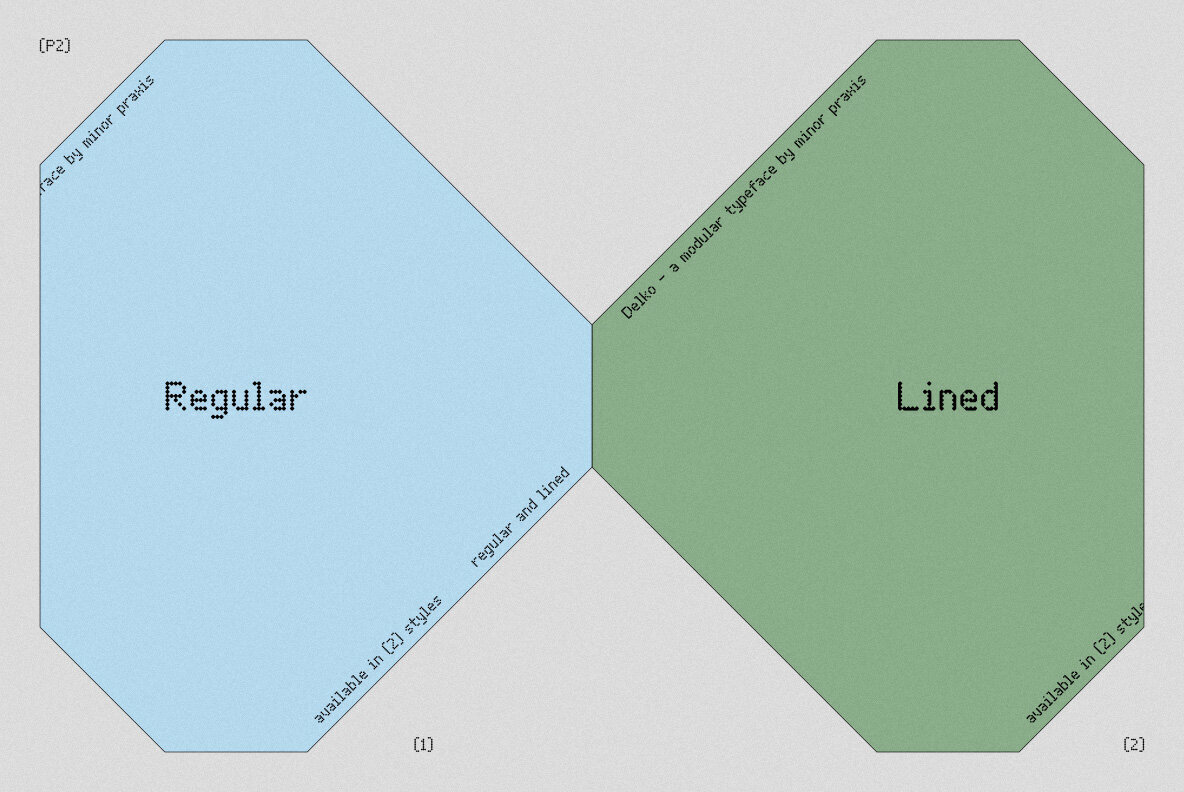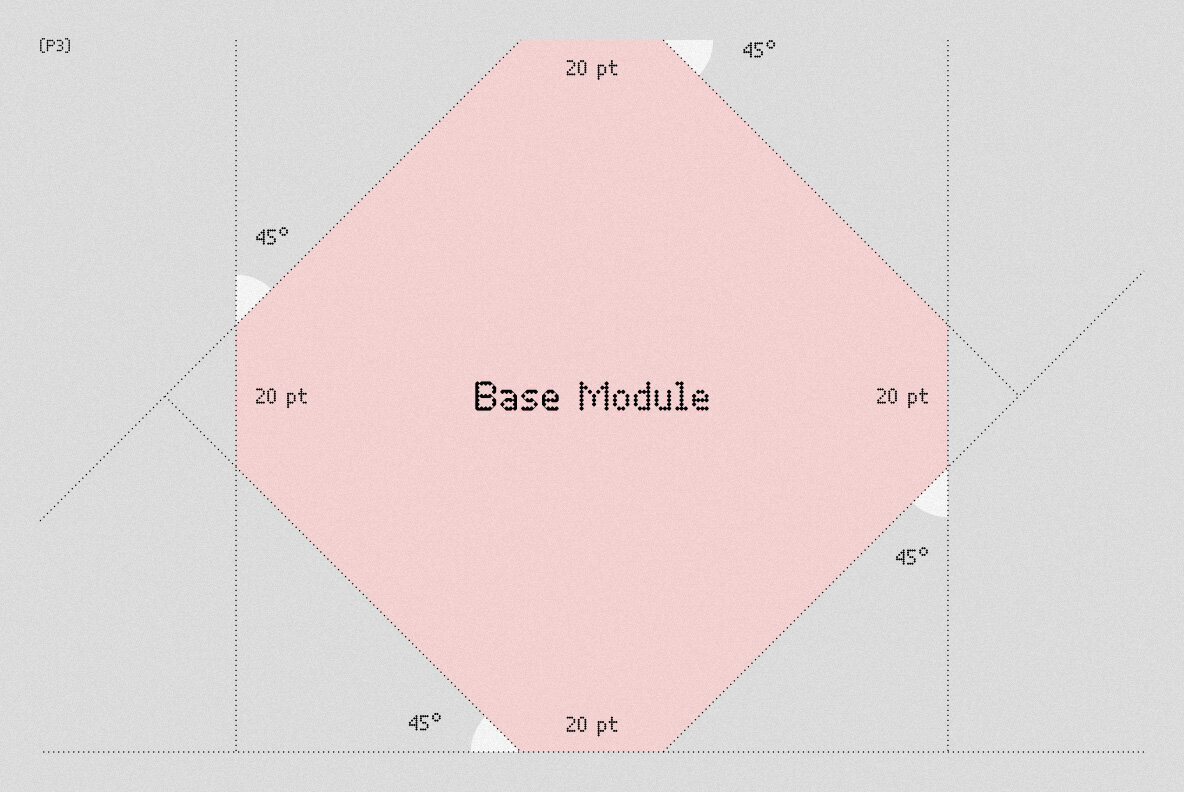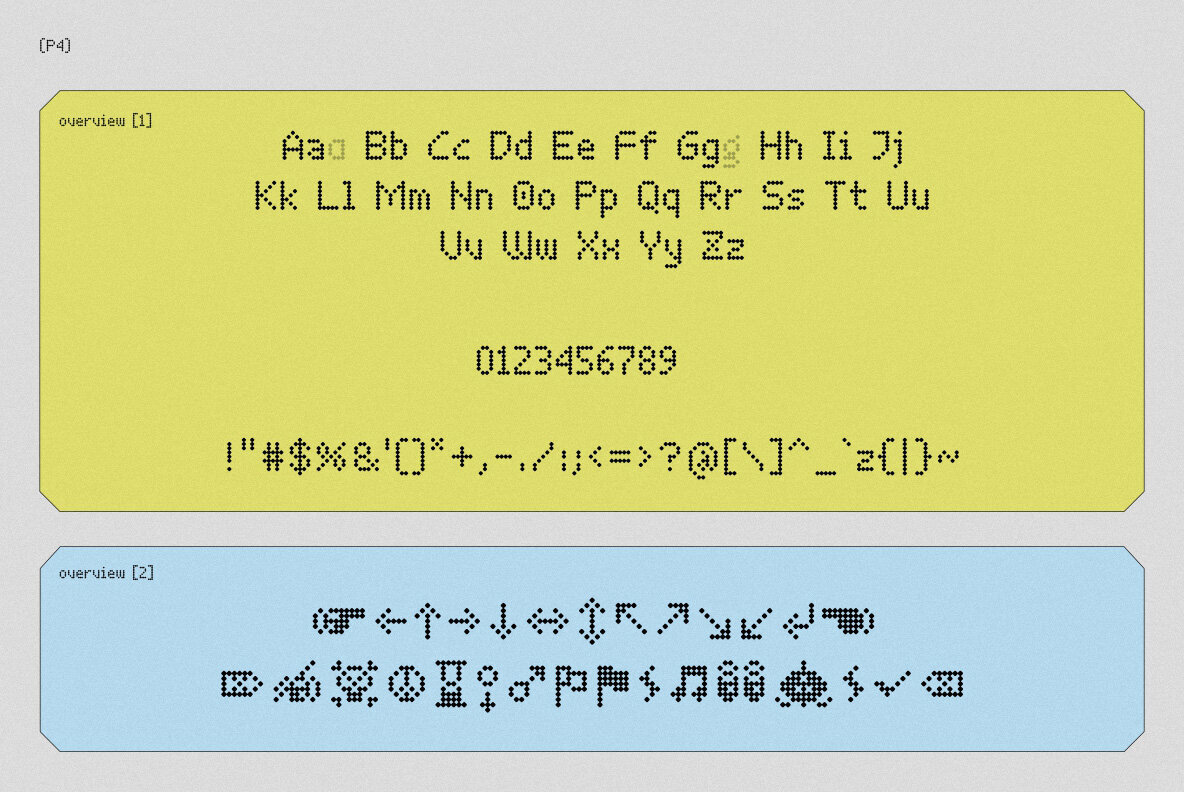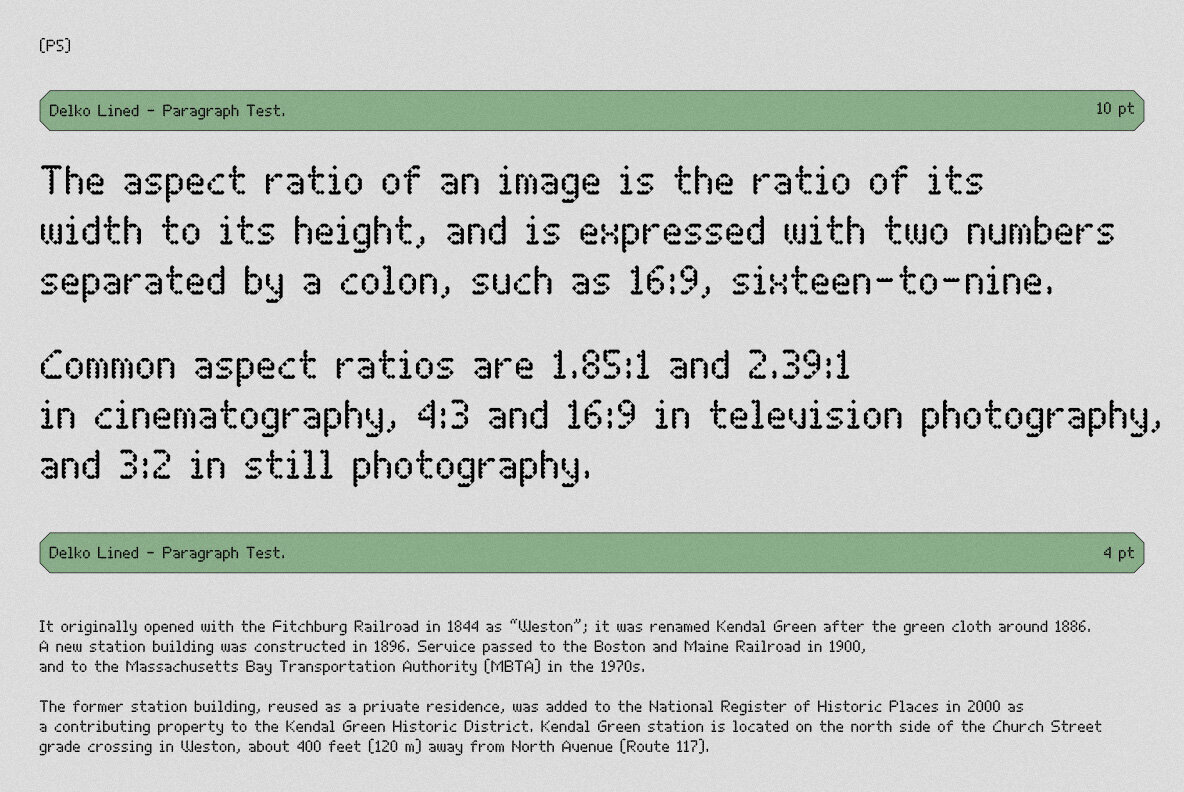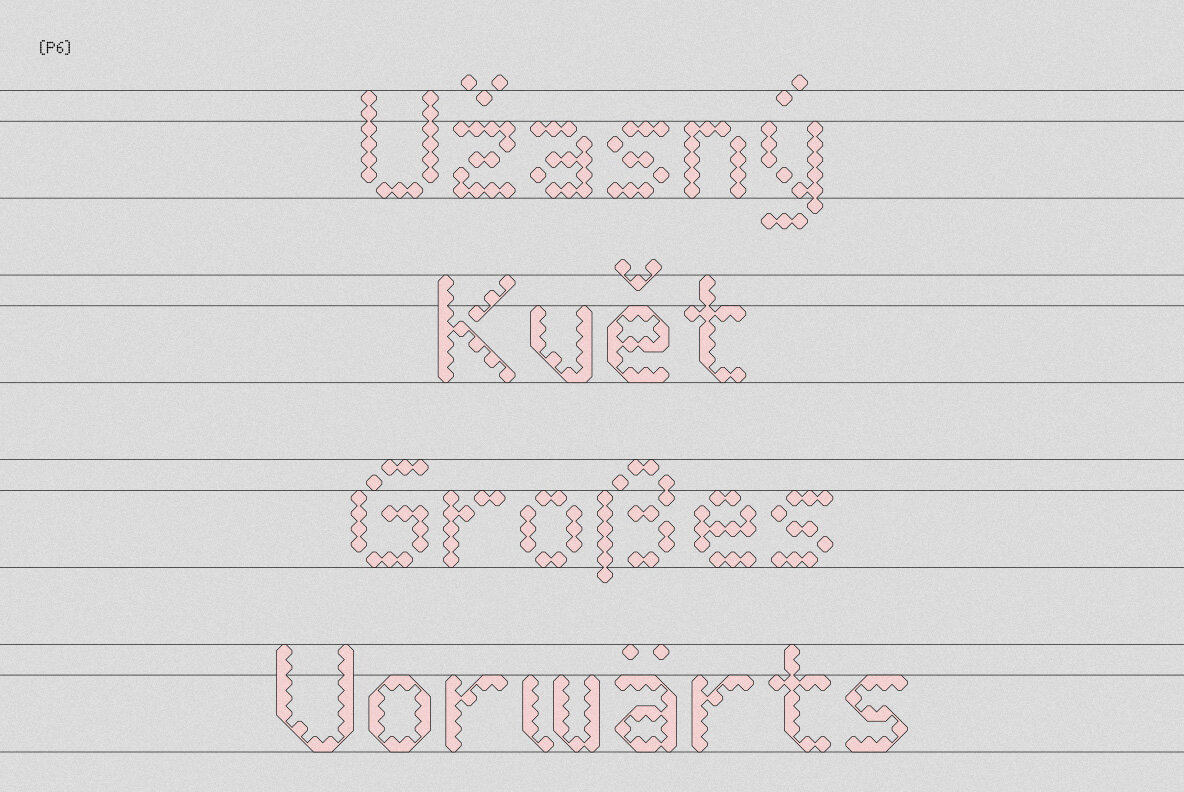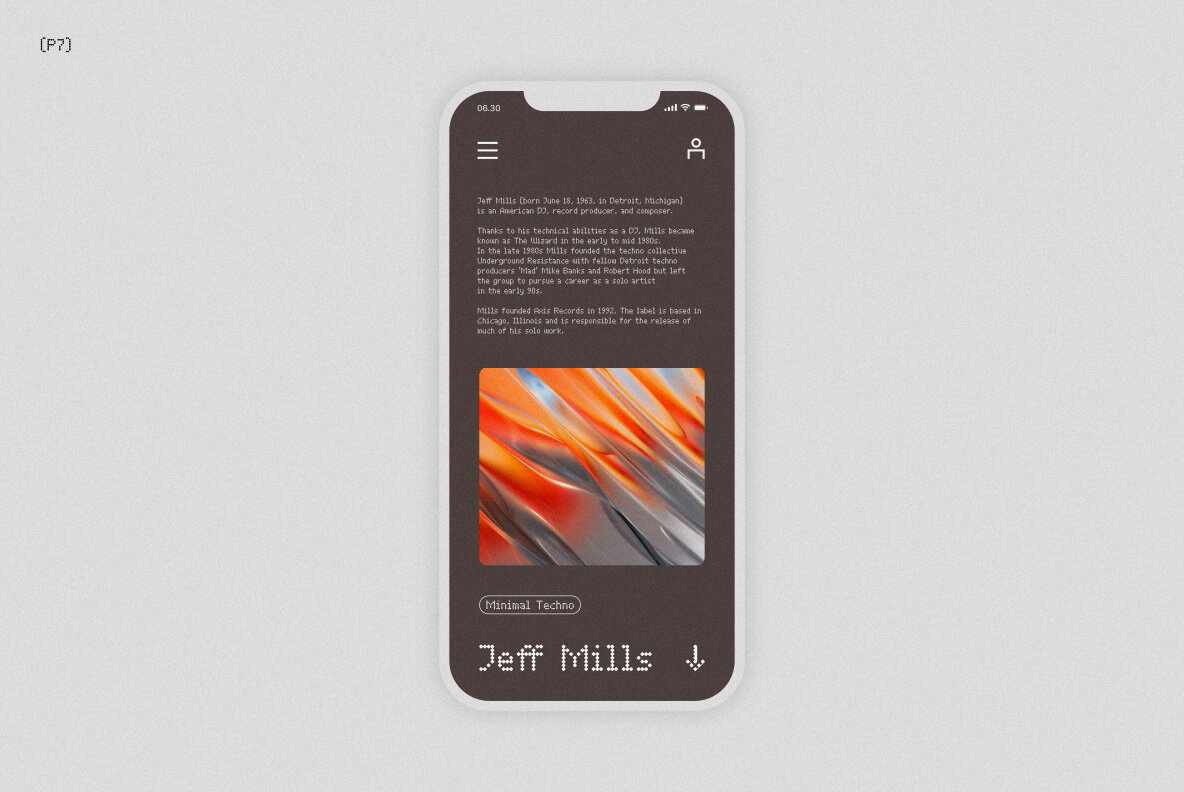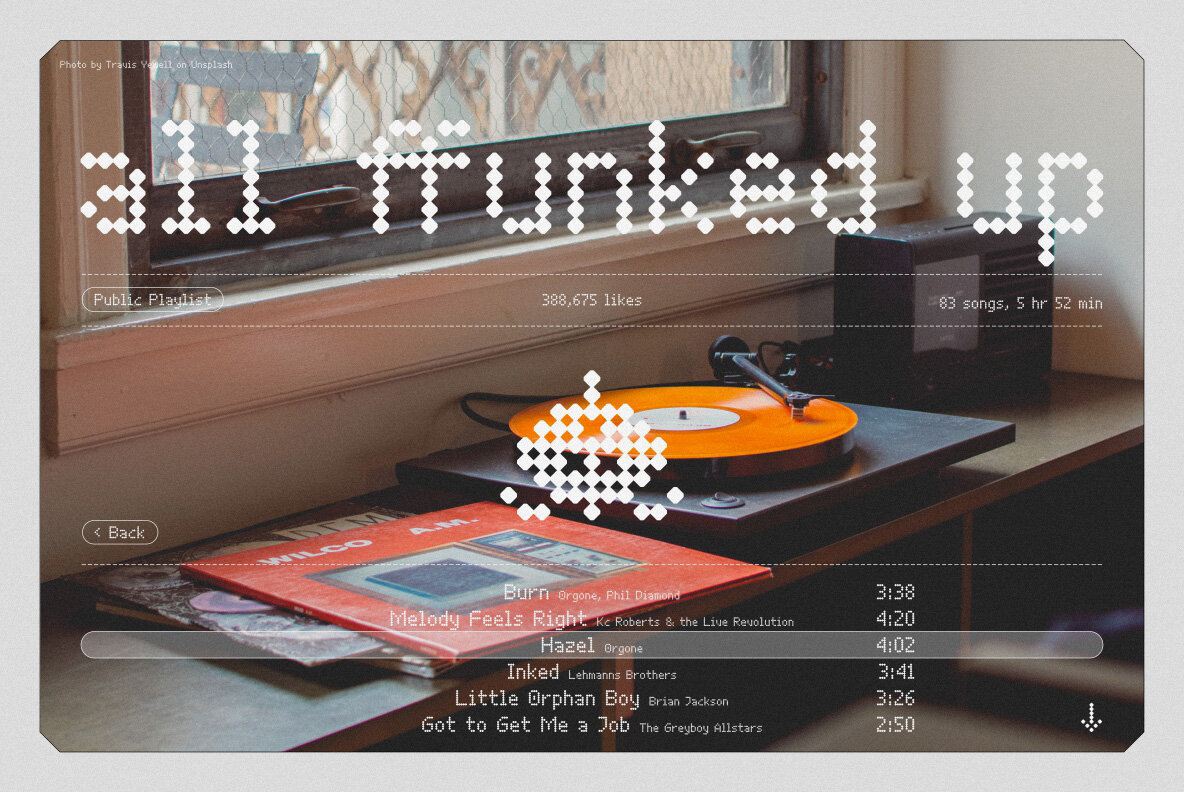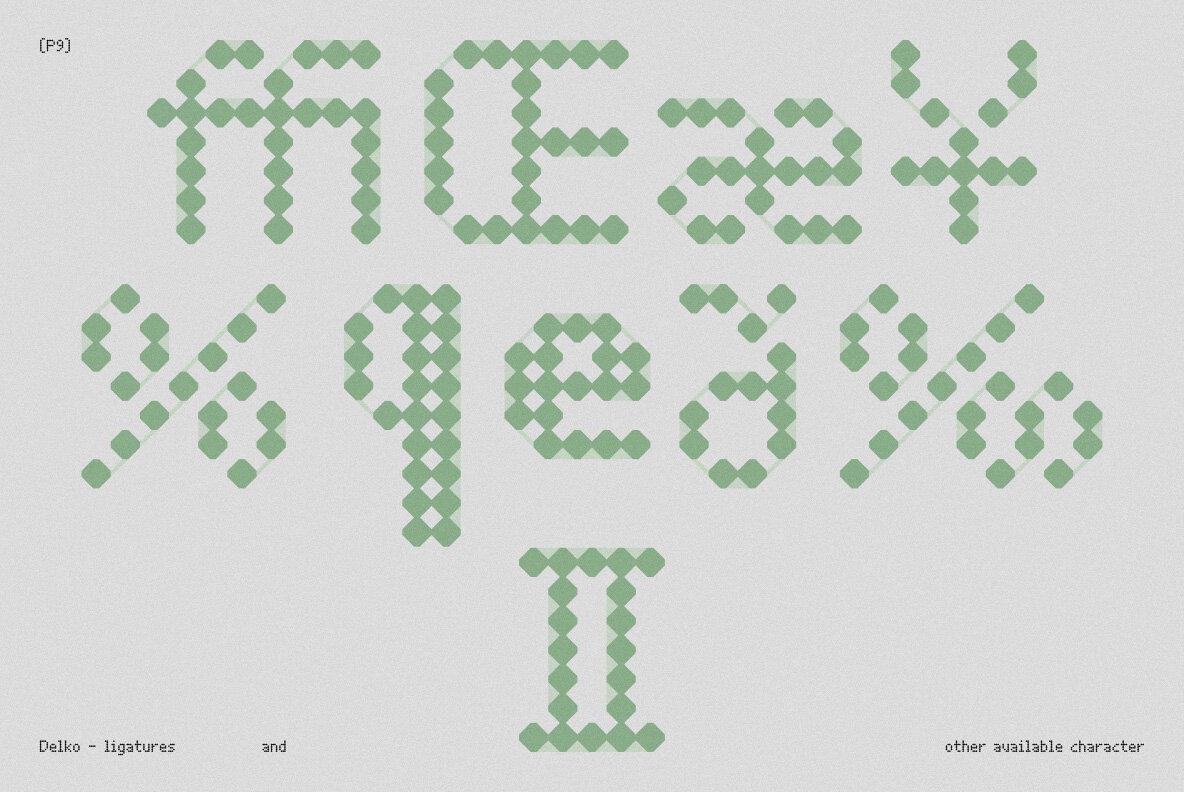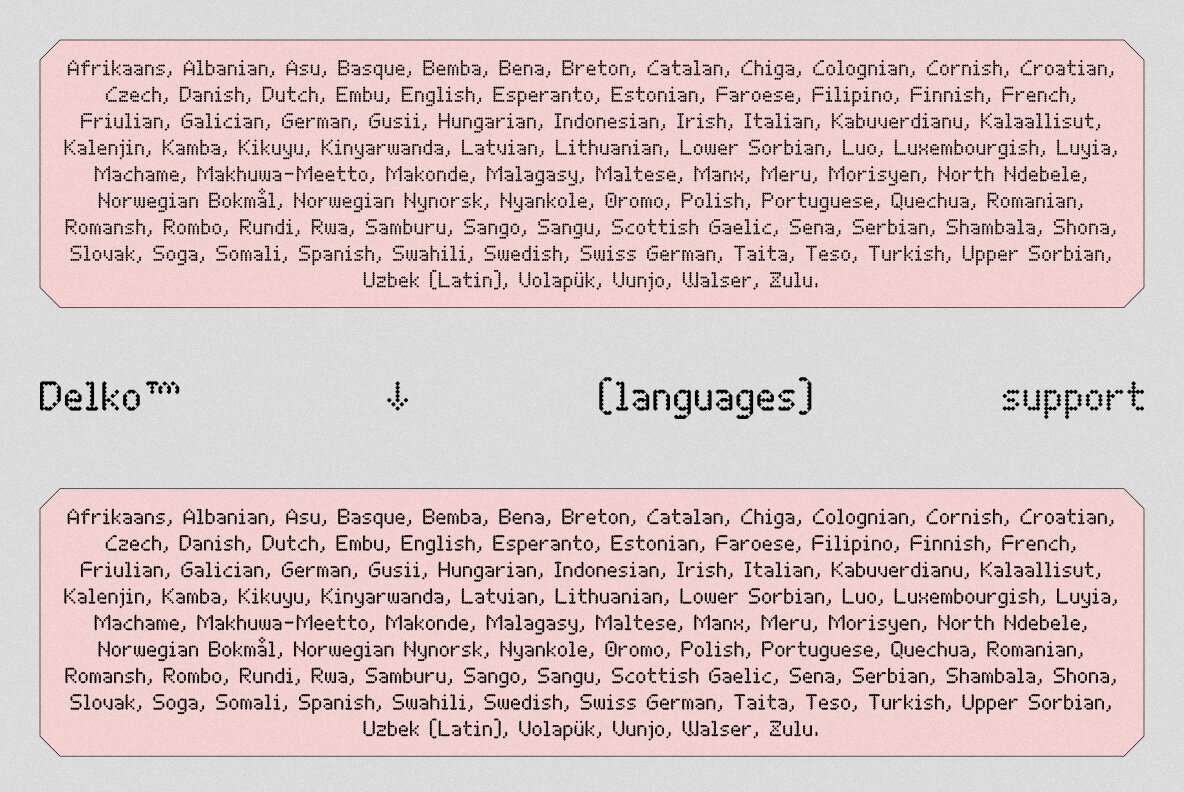
Delko Font
Inspired by a scrolling banner led lamp display and monospace fonts like OCR-A/B.
A modular typeface that come from an arranged octagonal shape module, with 45 degrees sides slope which can gives it a casual digital-look font. Designed for headlines, posters, and medium size body copy.
Delko come with 2 styles, regular and lined. Languages support, ligatures, stylistic alternates, and symbols are available.